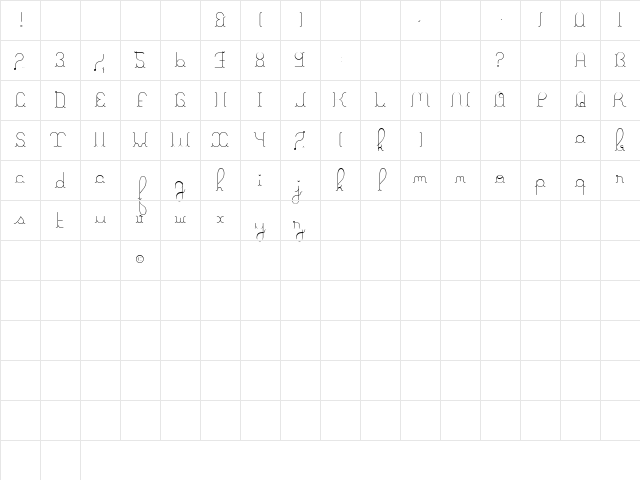
Complete A La Nage Light glyph index. Displaying only characters natively supported by A La Nage Light font.
A La Nage is a composed and adaptable typeface that performs quietly and consistently across a wide range of design contexts. Its slender proportions lend an understated elegance to any composition.